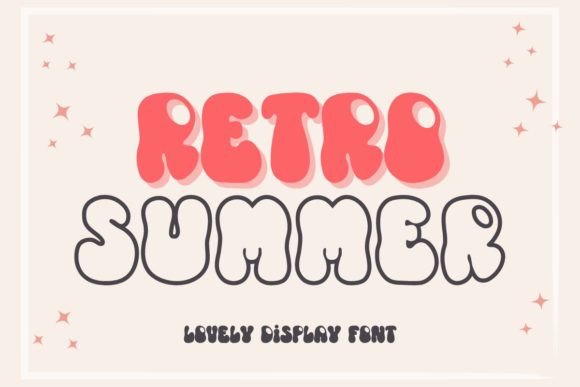
Prepare yourself to embark on a groovy design adventure with Retro Summer Font, an enchanting display font family that exudes fun and playfulness! Created by the talented AnningArts, this font is a burst of retro vibes, perfect for adding a touch of nostalgia and whimsy to your creative projects.
Dive into the world of joyous designs and let your imagination soar with endless possibilities. Retro Summer Font is your gateway to creating captivating banners, eye-catching content, unique mugs, heartfelt cards, stylish shirts, personalized stationery, engaging social media posts, and so much more! The font's charming personality will infuse your designs with a cheerful energy that will resonate with your audience.
Picture this: a vibrant Valentine's Day design adorned with Retro Summer Font, spreading love and cheer with every stroke. Or, envision a series of whimsical banners, each letter dancing in harmony, beckoning customers to explore your products or services. The possibilities are limitless, just like the joy this font brings to your designs.